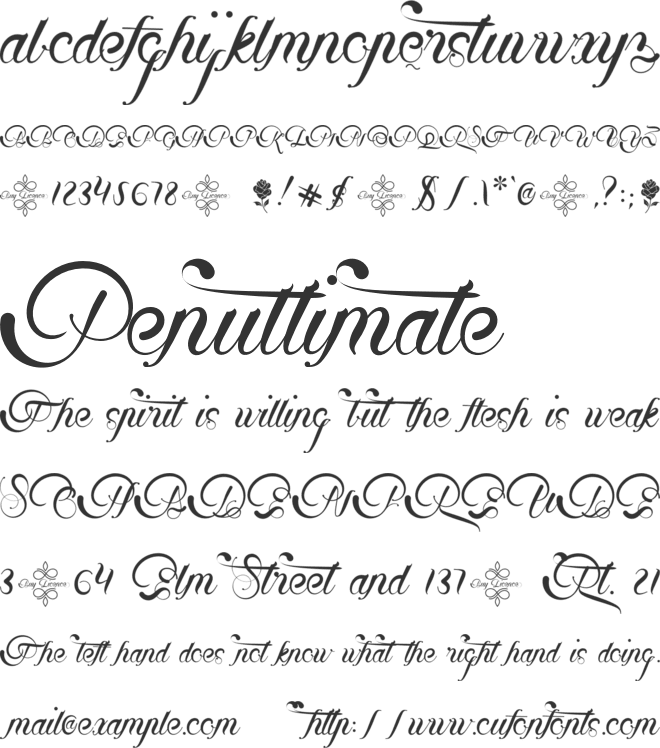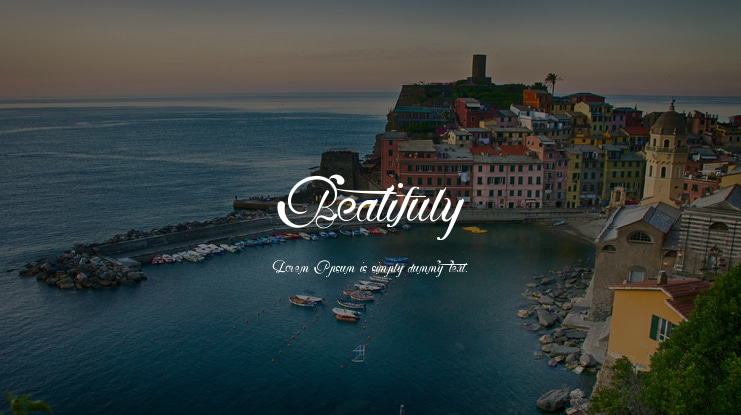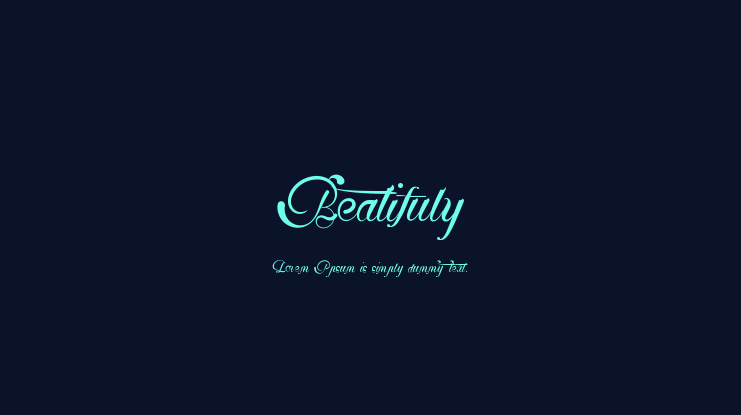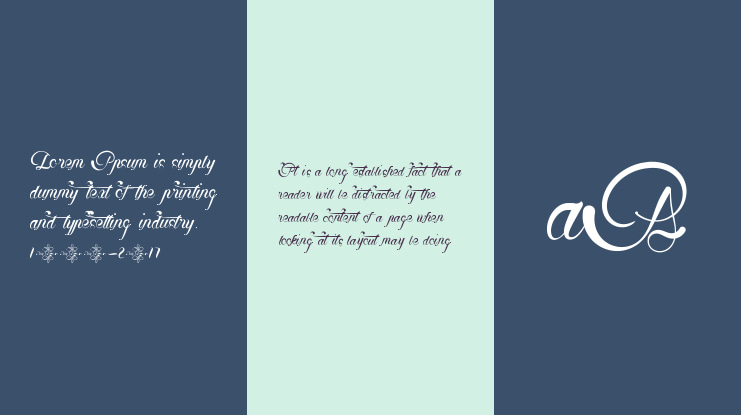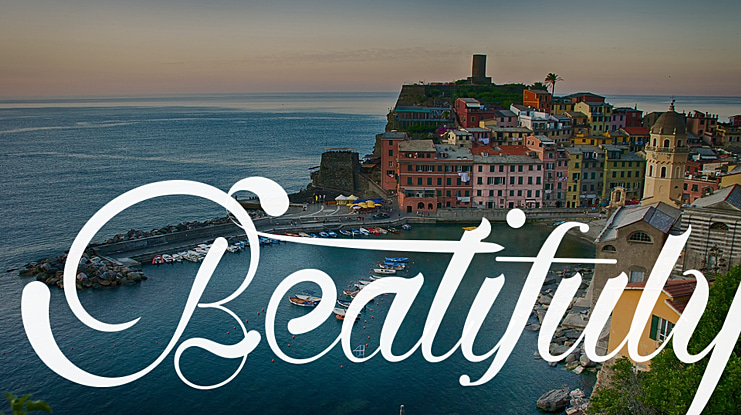
Beatifuly Font
Beautifuly is inspired by Indonesian Classic Jepara Sclupture Art with elegant, luxury, beauty and classy characteristics. This font is conceptualized seriously and deeply to make it a truly extraordinary font.
So "Beautifuly" is very-very suitable for almost all projects such as: logotypes, branding, wedding invitations, jewerly labels, classy debit-credit card, romantic cards, classy drink labels, packaging, spelling of names and others wich need classy-extraordinary touch.